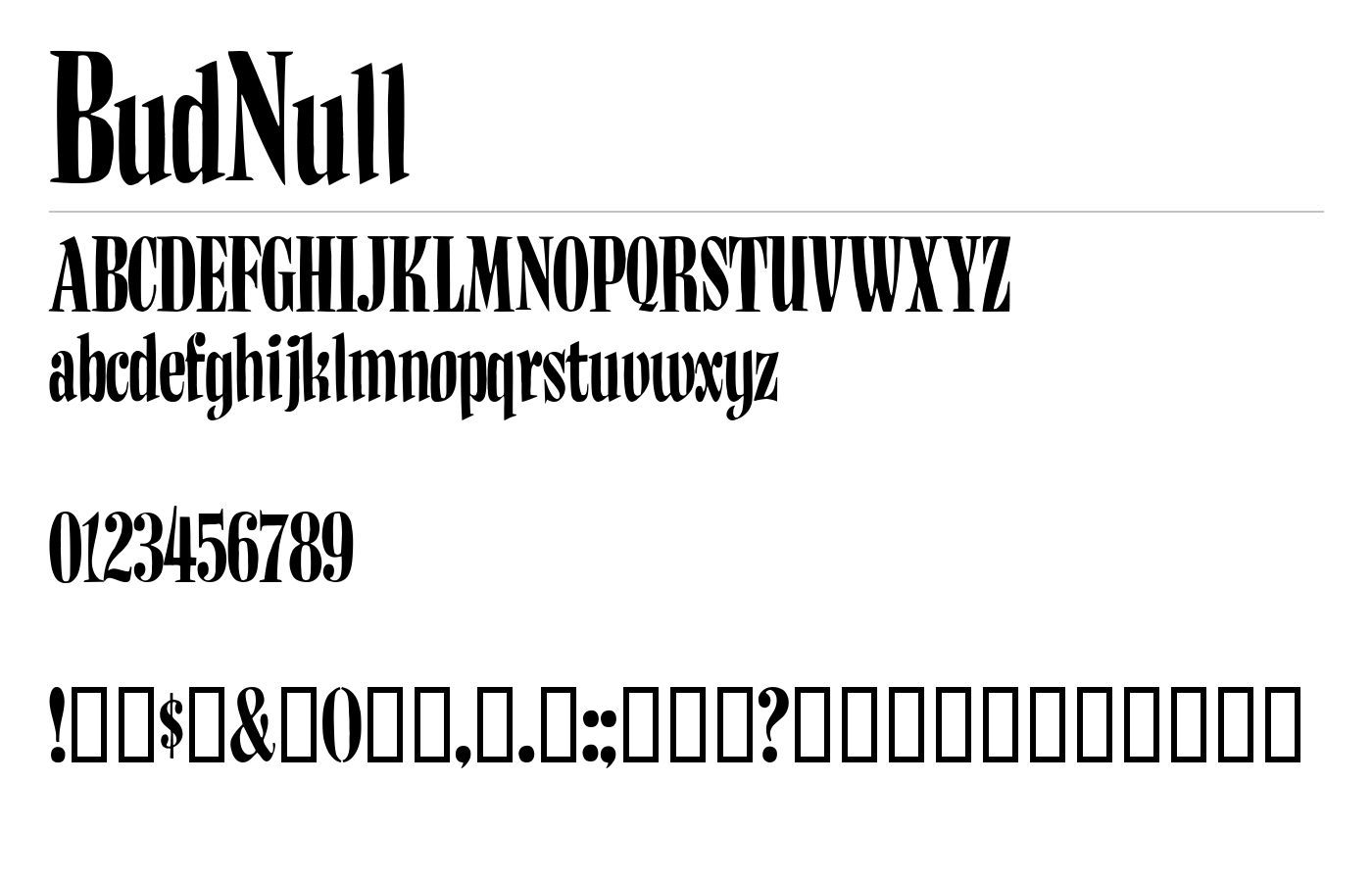
BudNull is a bold, condensed serif font with a strong, vintage character that captures attention through its high contrast and sharp, bracketed serifs. Its tall, narrow letterforms with distinctive shapes give it a dramatic, slightly quirky personality ideal for striking headlines, logos, and editorial designs that need a touch of retro sophistication. This font works especially well in branding and display contexts where bold impact and a classic yet playful tone are desired.
BudNull Font
About BudNull Font